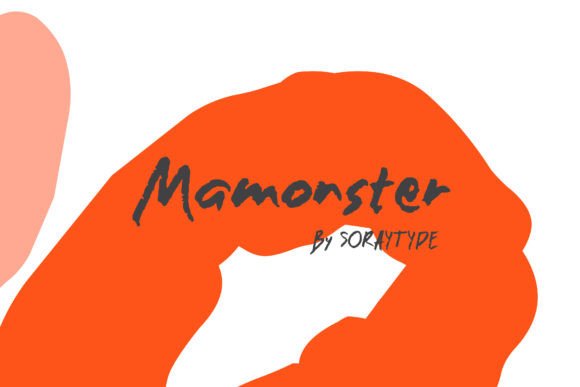
Unleash the Terrifying Beauty of Mamonster Font: A Typographic Masterpiece for Horror, Thriller, and Scary Projects
Journey into the realm of darkness and intrigue with Mamonster Font, the ultimate brush font that will send chills down your spine. Created by the ingenious mind of soraytype, this font is a hand-crafted masterpiece that oozes horror, thriller, and scary vibes, making it the perfect choice for projects that demand a touch of the macabre.
With Mamonster Font, you'll have the power to:
- Ignite Fear and Awe: Create branding that leaves a lasting impression, with Mamonster Font's ability to evoke strong emotions.
- Hauntingly Beautiful Headlines: Craft headlines that grab attention and transport readers to a world of mystery and suspense.
- Enchanting Album Covers: Design album covers that perfectly capture the essence of your music, creating an aura of intrigue that will leave listeners spellbound.
- Spine-Tingling Movie Covers: Create movie covers that send shivers down the spine, setting the stage for a cinematic experience that will keep audiences on the edge of their seats.
- Captivating Story Books: Bring your stories to life with Mamonster Font, immersing readers in worlds of darkness and wonder, where the imagination runs wild.
- Unleash Your Creativity: Mamonster Font opens up a world of creative possibilities, allowing you to explore your dark side and craft designs that truly stand out.
So, embrace the horror, embrace the thrill, and embrace the scary with Mamonster Font. Let your creativity run wild and create designs that will haunt and captivate your audience. The power of darkness awaits, are you ready to embrace it?